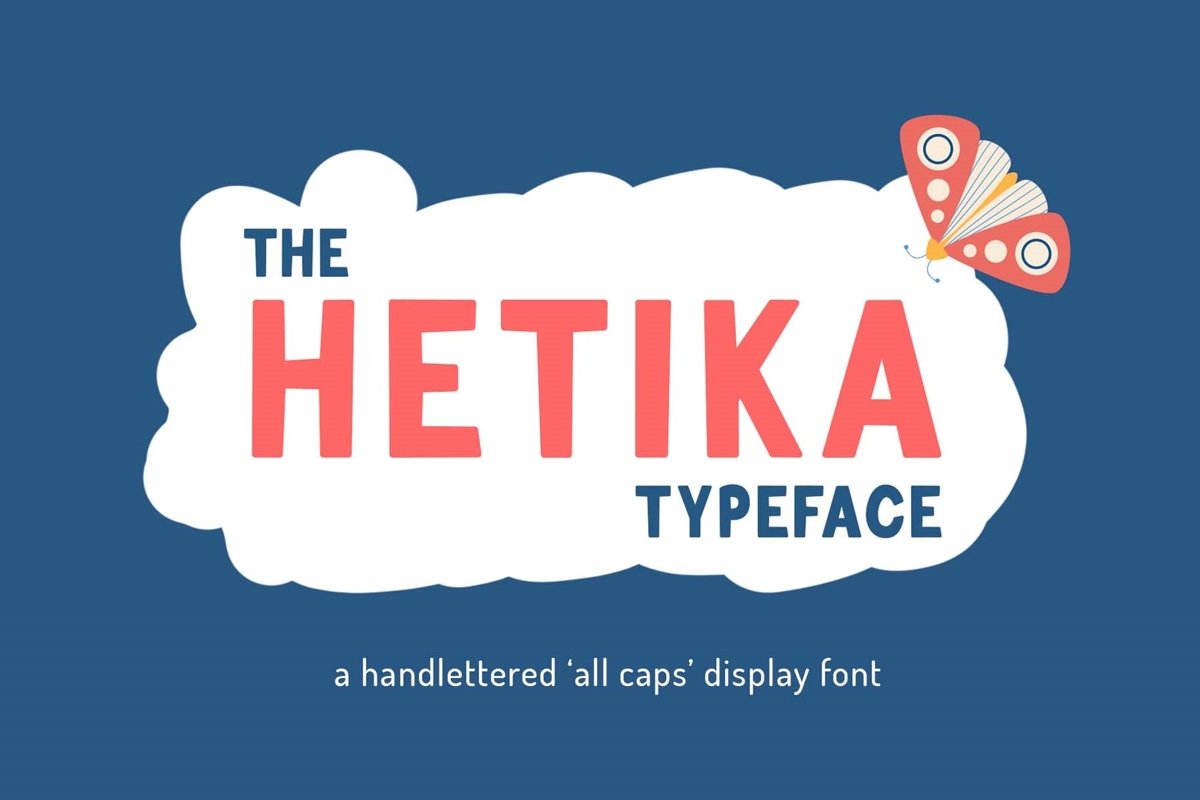
Hetika
HETIKA
Hetika is a lovingly crafted hand-lettered all caps font with smooth corners. A super friendly and playful hand-lettered bold typeface with the feel of clean and simple modern design look. Although it can be used at smaller sizes, it has been designed primarily for use at larger scales.
This font perfectly suited for a variety display purposes including headlines, posters, branding, packaging, presentations, logo, quotes, titles, magazines headings, web layouts, advertising, invitations, packaging design, books, and nearly any creative design.